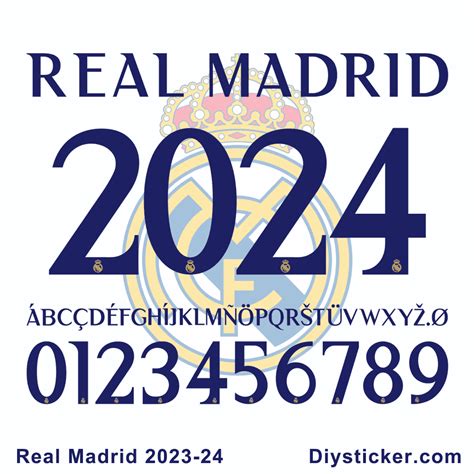
Real Madrid 2024 Jersey Font: A Comprehensive Guide
Hey guys, are you ready to dive deep into the world of Real Madrid’s 2024 jersey font ? If you’re a die-hard fan like me, you know that the font on your team’s jersey is more than just letters and numbers; it’s a statement, a symbol of identity, and a piece of history. In this comprehensive guide, we’ll explore everything you need to know about the Real Madrid 2024 jersey font, from its design and features to where you can find it and how to spot the real deal. So, buckle up, and let’s get started!
Unveiling the Real Madrid 2024 Jersey Font Design
Alright, let’s talk about the design, because that’s where the magic really happens, right? The Real Madrid 2024 jersey font is likely to continue the tradition of combining elegance and modernity that has come to define the club’s visual identity. Adidas, the club’s long-standing kit supplier, typically works closely with Real Madrid to create a font that reflects the club’s prestigious status and global appeal. We can expect a font that is both aesthetically pleasing and easy to read, ensuring that the players’ names and numbers are clearly visible on the pitch and in the stands. The design often incorporates subtle details that pay homage to the club’s history and achievements. Perhaps a nod to the iconic white color or a sleek, dynamic style that represents the team’s relentless pursuit of victory. The font might feature a unique shape or style for the numbers and letters, maybe with a slight curve or angle to reflect the fast-paced nature of the game. The color of the font is also a crucial aspect. While white is a classic choice, other colors might be used depending on the jersey’s design, like black or gold. Real Madrid’s font is usually customized with the club’s logo, often incorporated into the numbers or letters in a subtle but noticeable way. This detail is a mark of authenticity and adds to the jersey’s exclusive feel.
Another important aspect is readability. The font must be easily readable from a distance, especially for fans in the stadium and those watching on TV. This means the designers have to strike a balance between style and functionality. Remember that the font design also often extends beyond just the players’ names and numbers. It can also appear on training kits, merchandise, and other club-related materials, creating a cohesive visual identity across all platforms. Overall, the Real Madrid 2024 jersey font design is a blend of artistry and practicality, representing the club’s legacy while embracing the future. So, the designers will ensure a perfect match with the jersey’s overall aesthetics, and they’ll likely go with a style that complements the jersey’s design, ensuring that everything is visually harmonious. The font will be designed to withstand the wear and tear of the game and washing, maintaining its appearance over time. This is critical for both the players and fans who will be using the jersey. The font design reflects not just the current team but also Real Madrid’s rich history, incorporating subtle nods to the club’s past. The designers will often go for something that is instantly recognizable as Real Madrid, a font that is as iconic as the club itself. Finally, the Real Madrid 2024 jersey font will meet all of the standards set by the governing bodies of soccer, ensuring it complies with all of the rules.
Key Features of the Real Madrid 2024 Jersey Font
Let’s break down the key features, because the details matter! The Real Madrid 2024 jersey font will have several distinctive features. First off, we’re talking about readability, guys. The font will be crystal clear, no matter how far you are from the action. Imagine trying to identify your favorite player from across the stadium; the font needs to be perfectly legible. Then, consider the style. You can anticipate a design that aligns with Real Madrid’s established branding and the overall aesthetic of the jersey. Maybe it will be sleek and modern, or perhaps it will have a touch of classic elegance. Color will also be important. The font’s color will contrast well with the jersey’s background. This ensures that the numbers and names are easy to see, whether it is during a daytime match or under the lights at night.
Moving on to the materials, the font will be made using high-quality materials, so it can withstand wear and tear. This includes things like the sun, rain, and the occasional tackle. Now, let’s talk about the size and placement. The numbers and letters will be the right size and correctly positioned on the jersey, following all the league regulations. Plus, there is customization. Many fans would want to personalize their jerseys with their names and favorite numbers. You can also expect the font to feature the Real Madrid logo, which adds an official touch.
The font may also incorporate unique design elements, like a subtle pattern or special effects. It’s all about making sure that the font perfectly complements the overall design of the jersey. In conclusion, the features of the Real Madrid 2024 jersey font are all about making a statement on the pitch and in the stands. The font has to be clear, stylish, and durable, while at the same time meeting all the standards and regulations. The font will be an integral part of the Real Madrid identity.
When buying, always make sure you’re purchasing from a trusted source to guarantee that you’re getting the authentic font. Beware of third-party sellers offering jerseys at prices that seem too good to be true, because these are often fake. The official sources provide guarantees of authenticity and quality. Make sure to check the size guides and product descriptions carefully before making a purchase. Look for official tags, labels, and the Adidas logo to confirm the jersey’s authenticity. Shipping policies and return options should also be considered. Choosing a reliable retailer will ensure that your purchase is protected. Buying from an authorized retailer will also support the club directly. The official stores and partners contribute to the team’s success. Always keep an eye out for promotions and special offers, but prioritize authenticity over a cheap price. When it comes to the Real Madrid 2024 jersey font , always go for the official sources for the best experience.
How to Spot a Fake Real Madrid 2024 Jersey Font
Alright, let’s talk about how to spot a fake because we all want the real deal! Here are some things to watch out for. First off, look at the font’s quality. Real jerseys have a precise, clear font that looks and feels top-notch. If the letters or numbers look blurry, uneven, or of poor quality, it’s a red flag. Also, check the spelling and alignment. Authentic fonts have correct spelling, and the numbers and letters are perfectly aligned. Any errors or misalignments are an indication of a fake. Then, consider the materials. Real jerseys use high-quality materials that feel durable and have a certain weight. The font itself is usually applied with a heat transfer process that ensures it sticks to the fabric. If the jersey’s material is thin, cheap, or feels flimsy, then you are probably looking at a counterfeit. Now, look closely at the logos and badges. The official Real Madrid crest and the Adidas logo should be perfectly detailed and accurately placed. Counterfeit jerseys often have poorly reproduced logos that lack detail and precision . Look at the overall stitching and construction. Official jerseys have high-quality stitching with no loose threads or imperfections. A fake may have sloppy stitching, mismatched colors, or uneven seams.
The price is always an important factor. If the price is too good to be true, it’s probably a fake. Authentic jerseys have a set retail price. You should also check the seller’s reputation. Make sure you buy from authorized retailers or reputable sellers with a good track record. Do a bit of research on the seller and read reviews from other customers. Comparing the jersey with official images is another good idea. Compare the jersey you are considering with images from the official website or reputable sources to ensure that the font, logos, and overall design are correct. Always trust your gut. If something doesn’t feel right, it’s always best to be cautious. Fake jerseys are everywhere, but by being alert and careful, you can protect yourself and ensure that you get the real thing, the Real Madrid 2024 jersey font !
The Evolution of Real Madrid Jersey Fonts
Let’s take a quick trip down memory lane and look at the evolution of the Real Madrid jersey font. This is where we appreciate the legacy. Over the years, the fonts have evolved, reflecting changes in style, technology, and the club’s identity. In the early days, the fonts were simpler and more classic, often featuring block letters and numbers, which were the norm of that era. Then, as the sport became more global and the team’s profile grew, the fonts became more sophisticated and modern. Adidas, as the kit supplier, played a huge role in this evolution. They introduced new technologies and design innovations, resulting in fonts that are more dynamic, legible, and visually appealing. Some fonts incorporated unique details that reflected the club’s heritage, such as the use of the club’s crest or other visual elements. The materials have also evolved. Earlier jerseys used basic materials, while today’s jerseys use high-tech fabrics that are both lightweight and durable, allowing for more intricate and detailed font designs. The font colors have also been a point of interest. White is the traditional color of Real Madrid, but other colors have been used to match different jersey designs.
The font’s design has evolved from simple to complex, reflecting how football jerseys have become a significant part of fashion and branding. The evolution of the Real Madrid jersey font is a reflection of the club’s history, its brand, and its place in the world. As technology and design continue to evolve, so will the fonts, ensuring that Real Madrid’s jerseys remain iconic and instantly recognizable. So, the club has continued to innovate and keep its identity up-to-date with current trends and styles while maintaining a core design that always keeps the club’s essence intact.
Conclusion: Celebrating the Real Madrid 2024 Jersey Font
So, there you have it, guys. We’ve covered everything you need to know about the Real Madrid 2024 jersey font , from its design and features to where to find it and how to spot a fake. Remember, the font is an important part of the jersey and the club’s identity. It represents the team, its history, and the values it stands for . Always make sure you’re buying from trusted sources to ensure you get the real deal. Stay informed, stay passionate, and keep supporting Los Blancos!